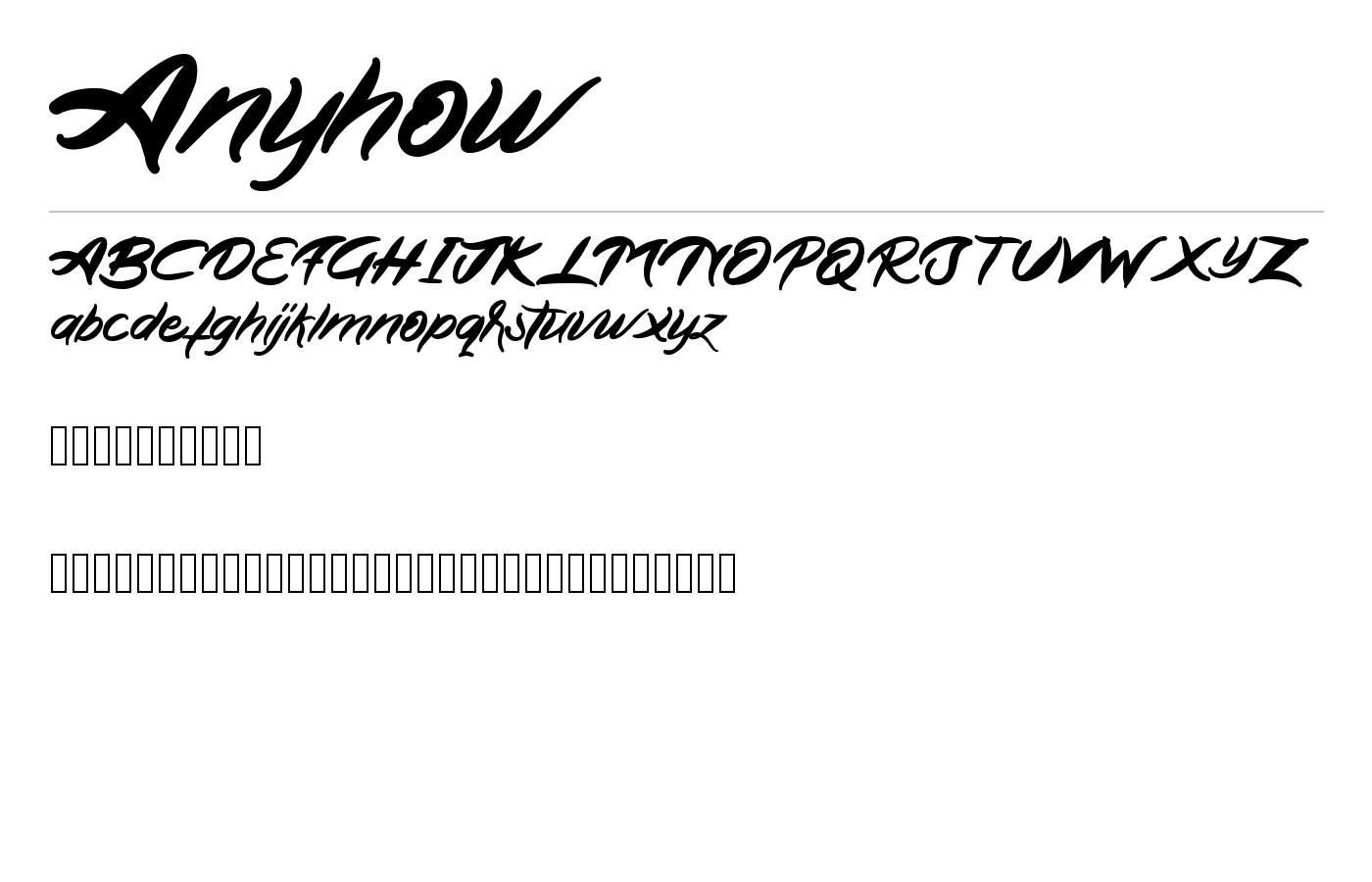
Anyhow Font is a lively and bold script typeface that captures a casual yet confident handwritten style. With its fluid strokes, moderate contrast, and slightly condensed letterforms, it conveys energetic movement and personality, making it ideal for creative branding, logos, and expressive headlines that need a touch of human warmth and spontaneity. This font works best where a dynamic and informal tone is desired, adding a stylish, artistic flair without sacrificing readability.
Anyhow Font
About Anyhow Font